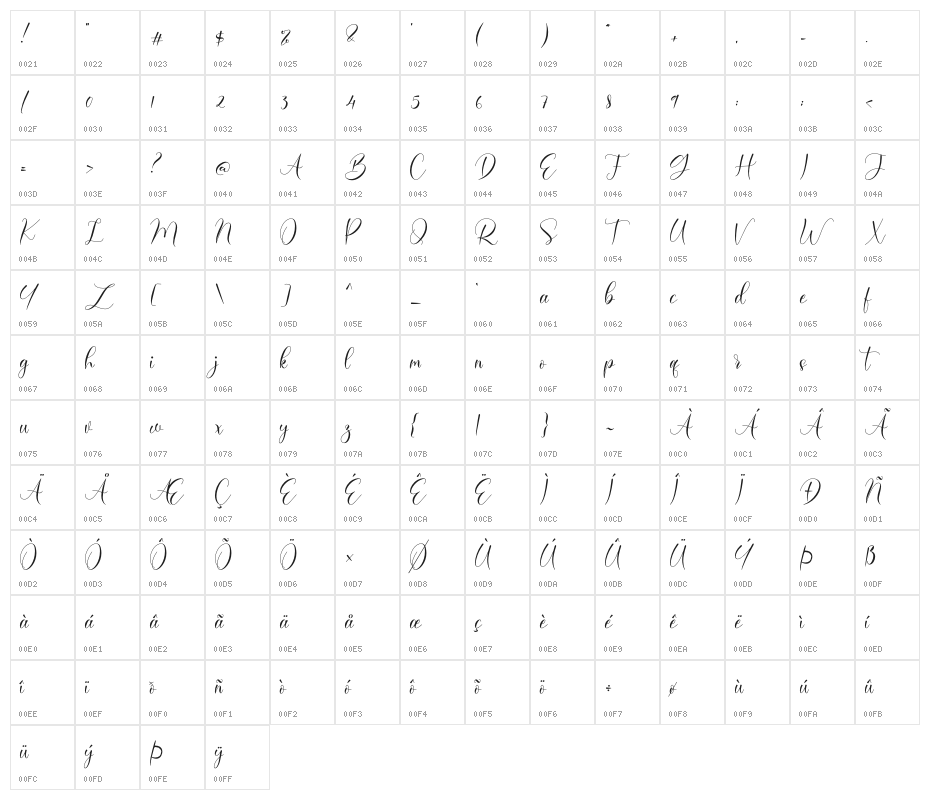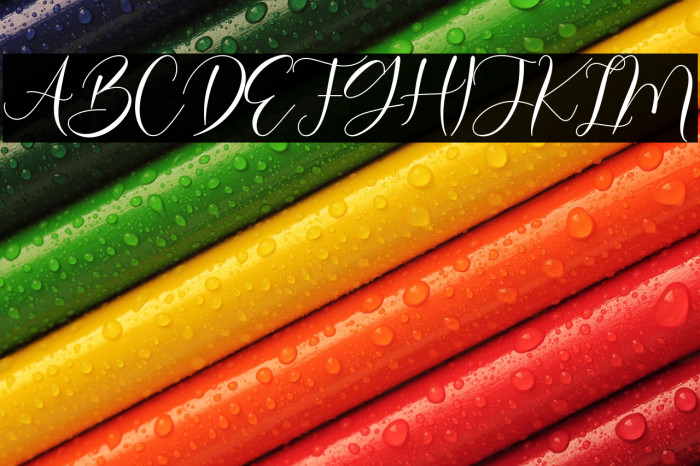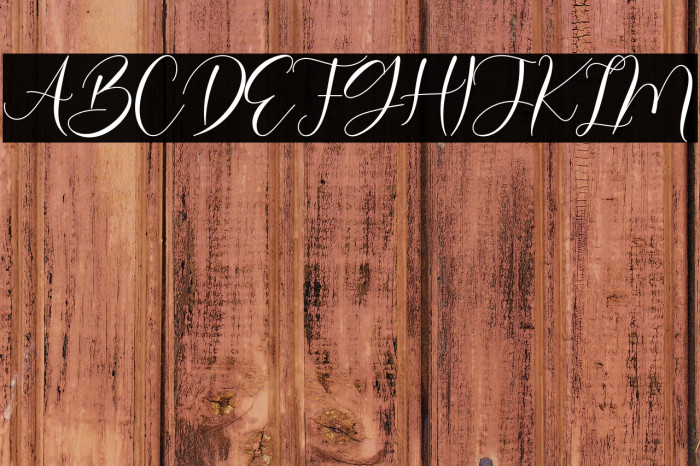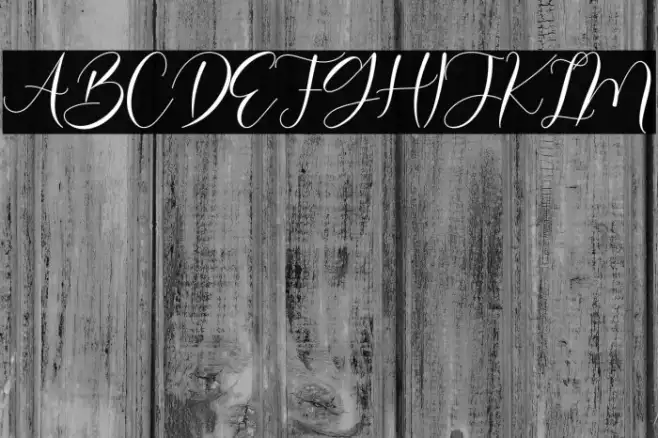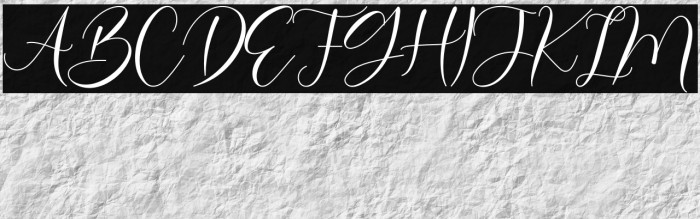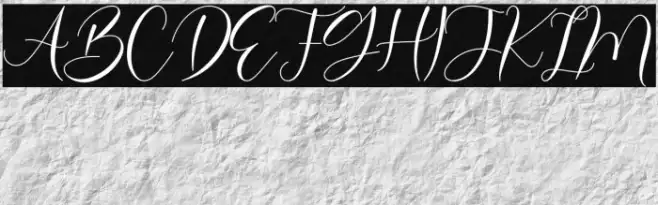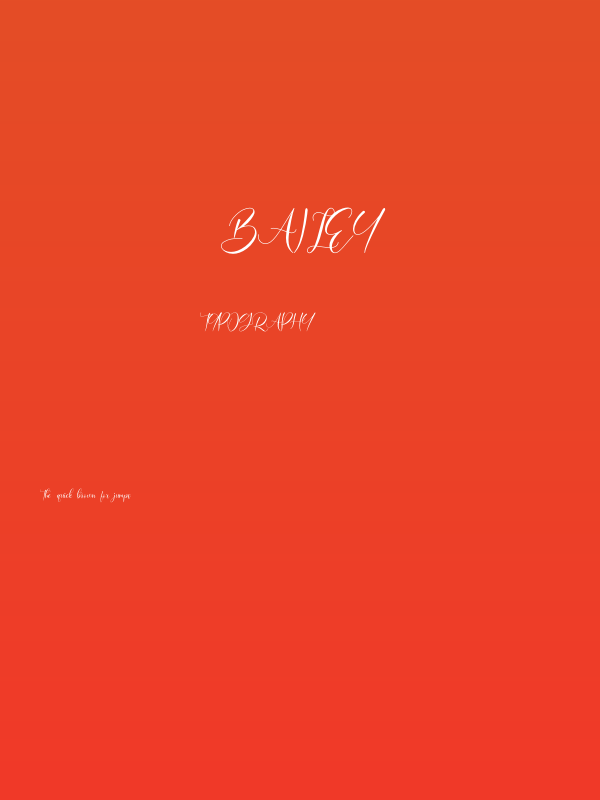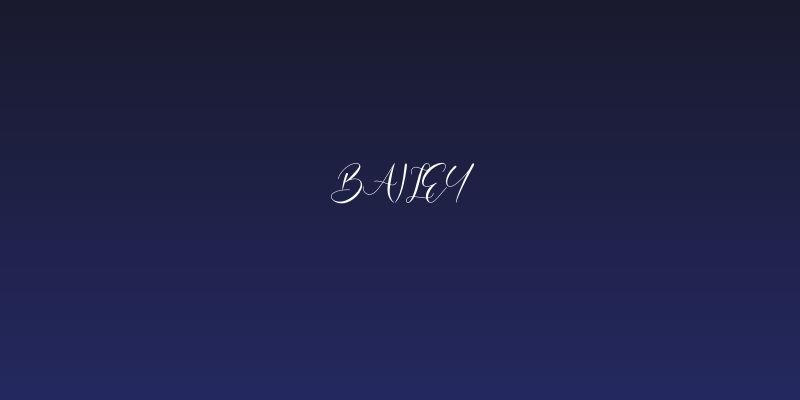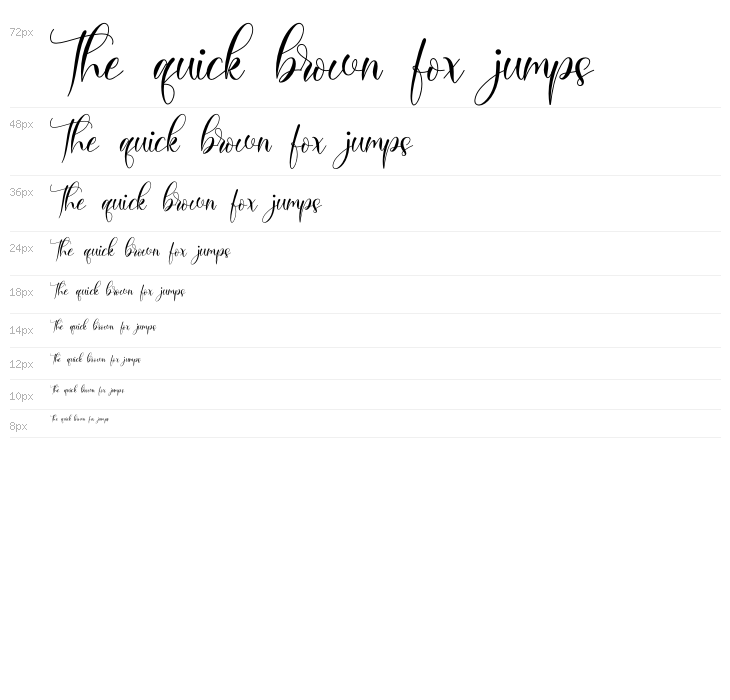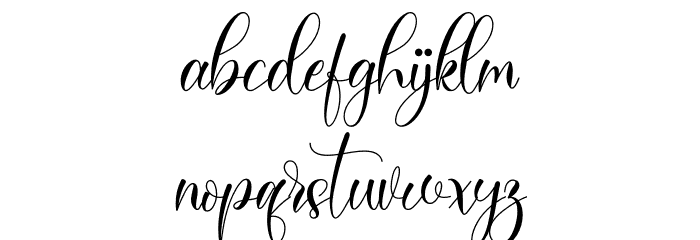
Bailey Font
Bailey Description
This elegant script font features flowing, interconnected letters with a graceful and sophisticated appearance. The uppercase letters are particularly ornate, with sweeping curves and flourishes that give them a sense of movement and fluidity. The lowercase letters maintain a consistent style, with rounded forms and delicate loops. The numerals are stylish and complement the overall aesthetic, while the special characters are thoughtfully designed to match the font's decorative nature. This font exudes a sense of elegance and is perfect for creating a refined and luxurious feel.